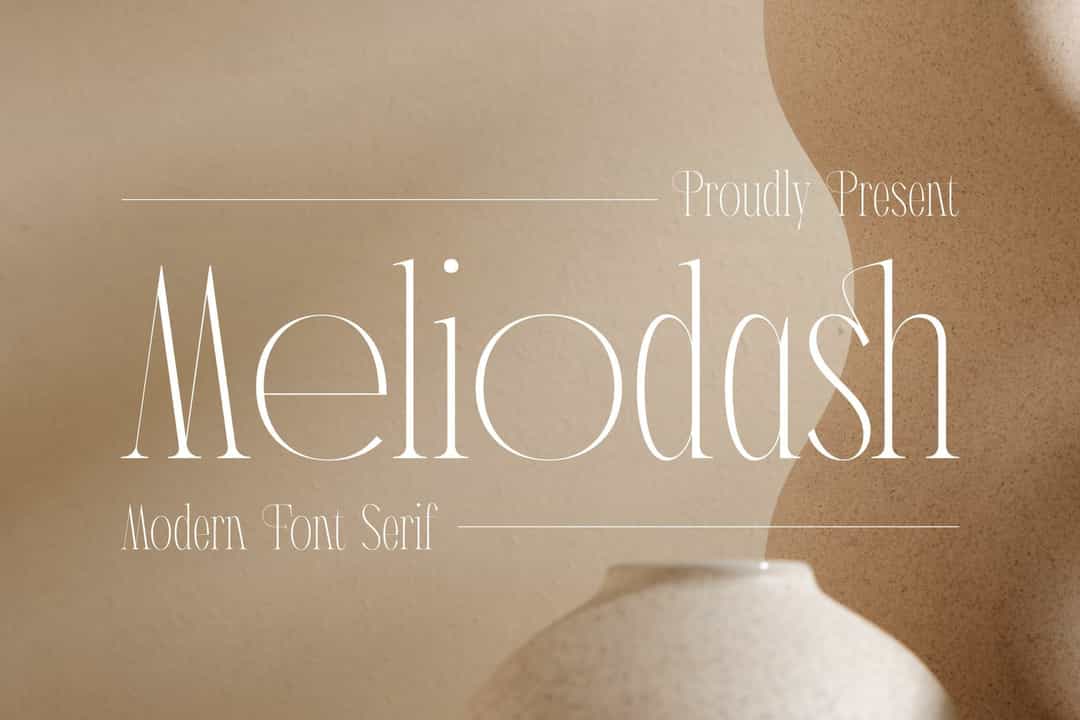
Meliodash is a contemporary yet timeless serif typeface with its own distinct style and contemporary appeal, perfect for creating classy logos, movie/book name designs, fashion brand clothing designs, magazines lettering layouts as well as quotes among many other uses.